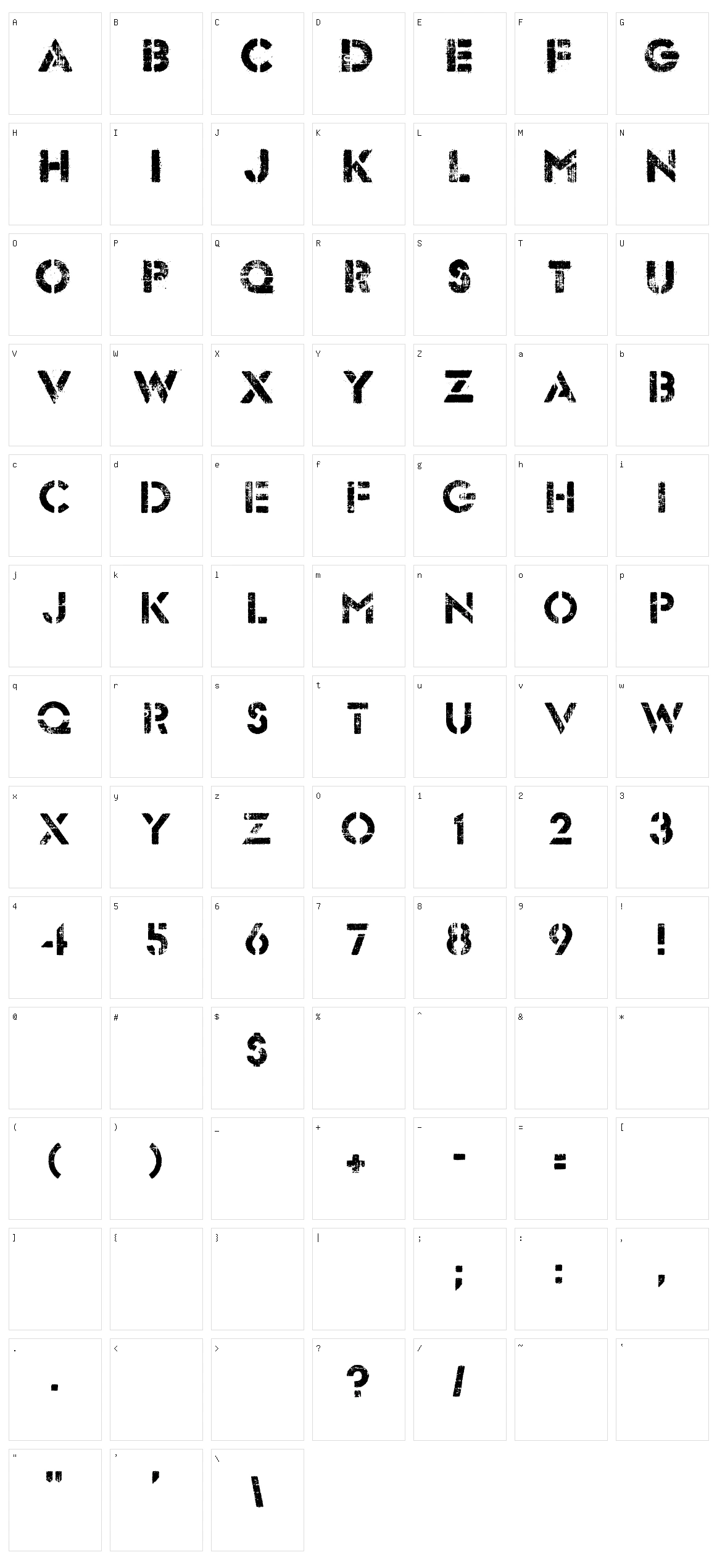
The free font Dock 51 is carefully designed by imagex, showcasing a thoughtful balance of creativity and usability and falls under the Stencil font style. When you download the ZIP file, it contains only 134.83 KB of font files, making it lightweight and quick to download. Please review the license details below to understand permitted usage and distribution rights. If license information is not available, we recommend using this font for personal projects only or contacting the author directly for commercial usage permissions.